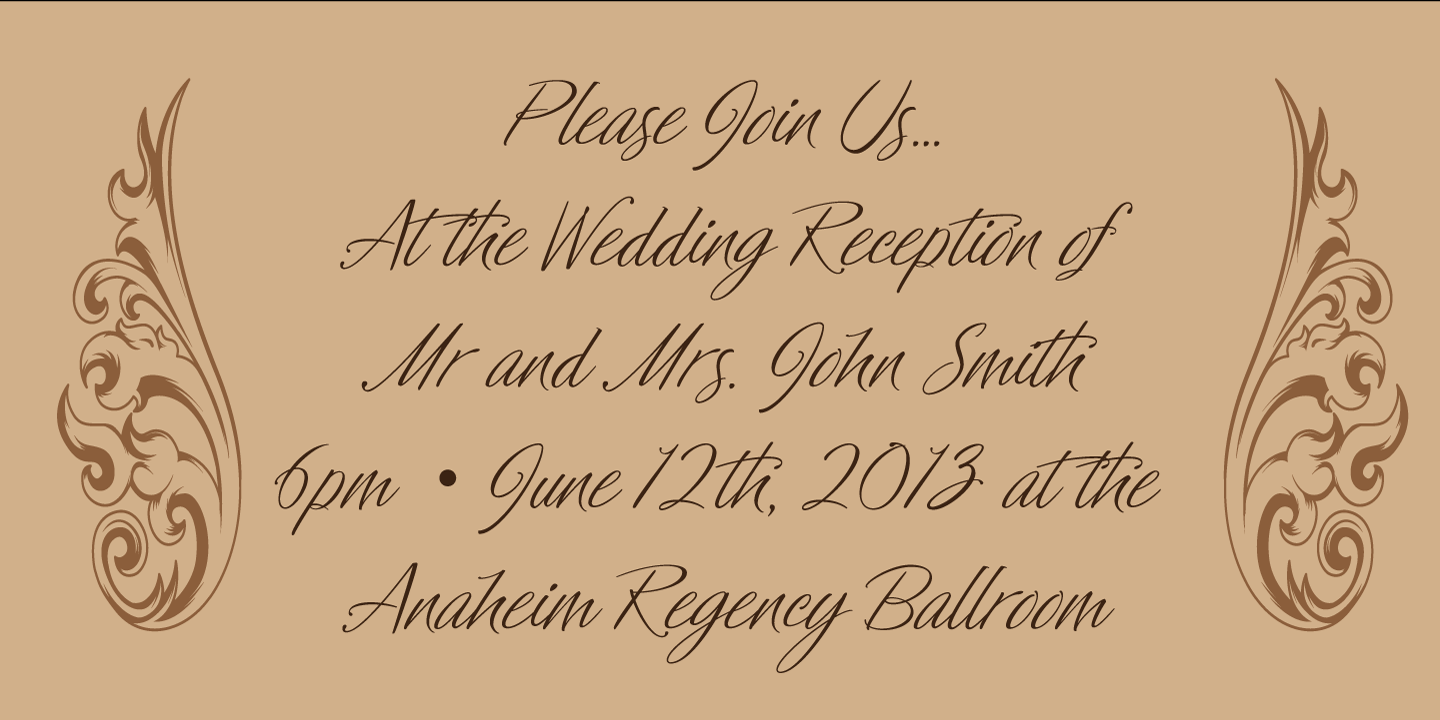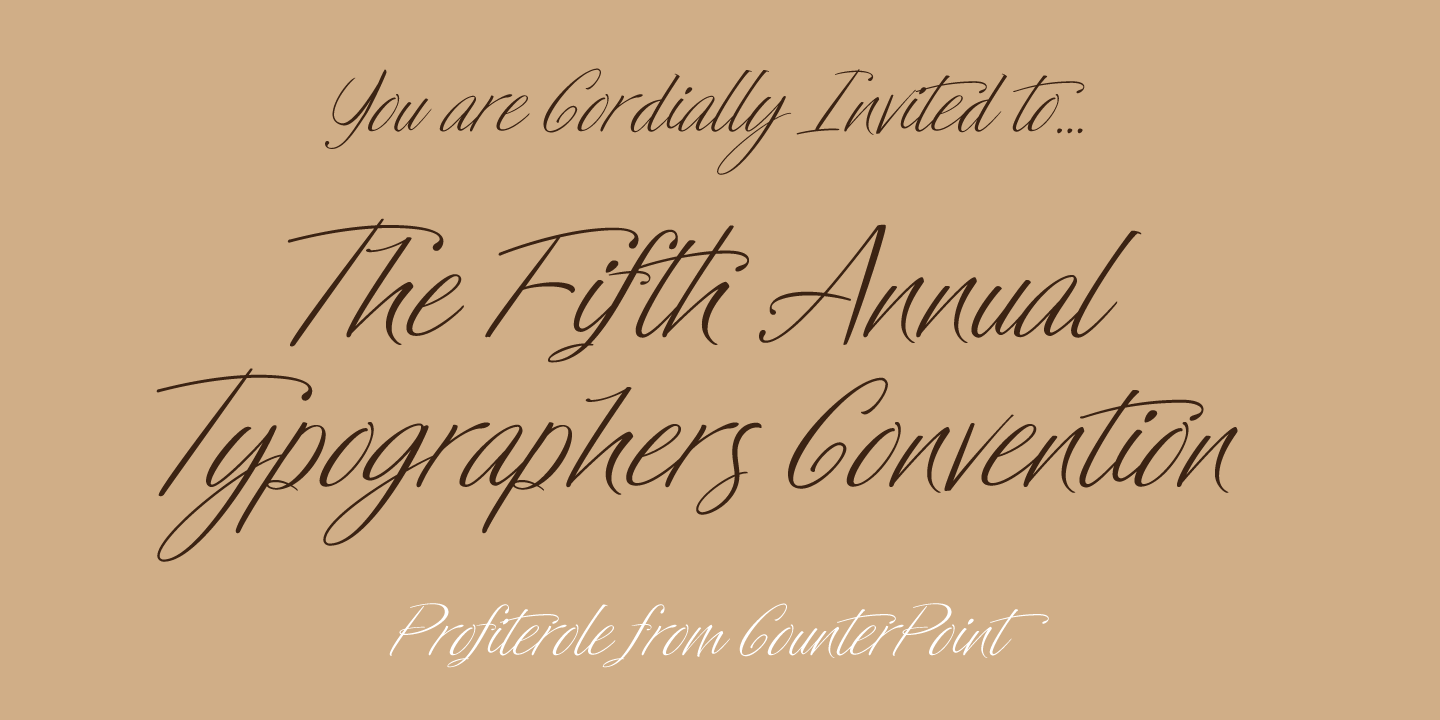
A light handwritten script font that is feminine and informal. Will lend a casual yet elegant feel to any design. Contains language support for both Latin-based and most Eastern European languages.